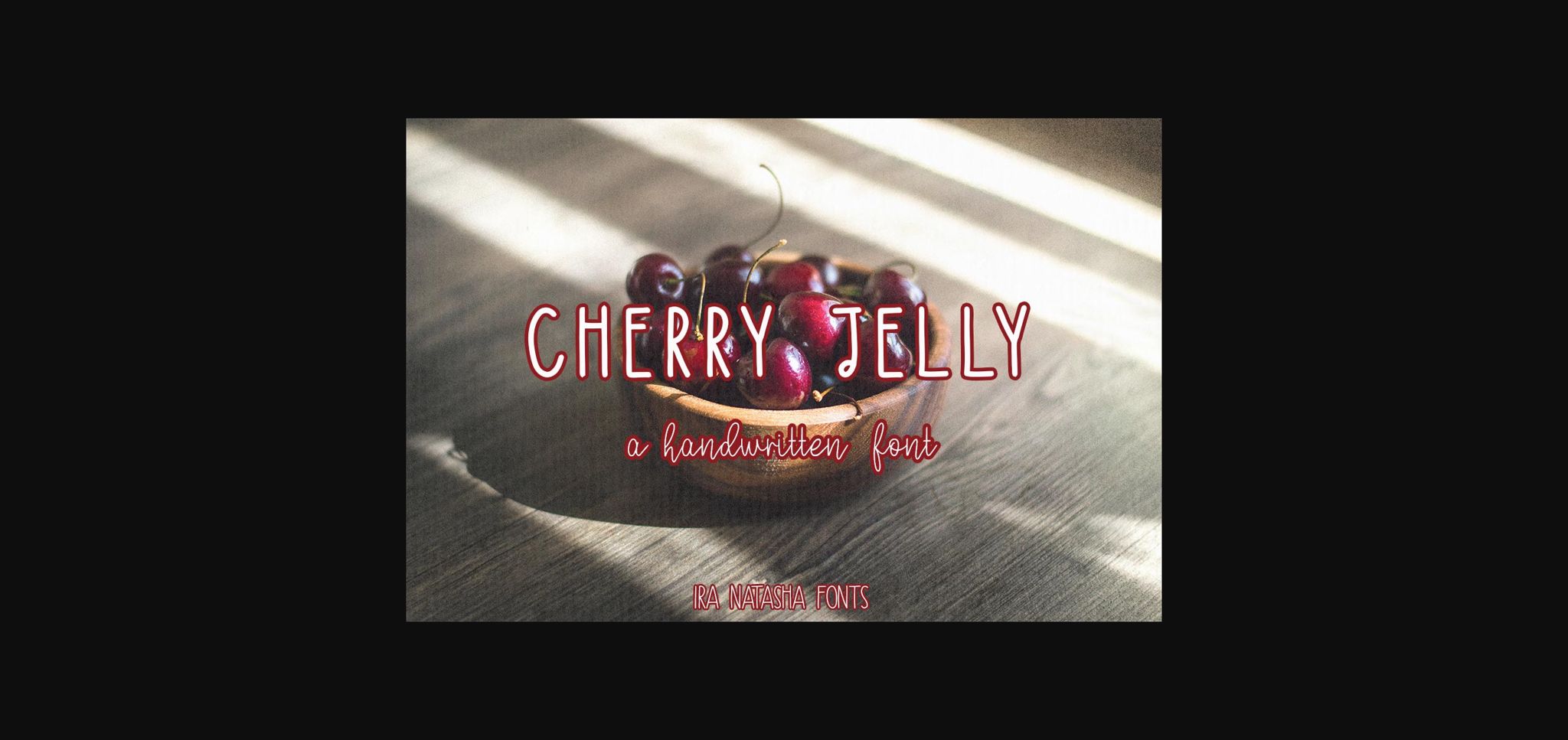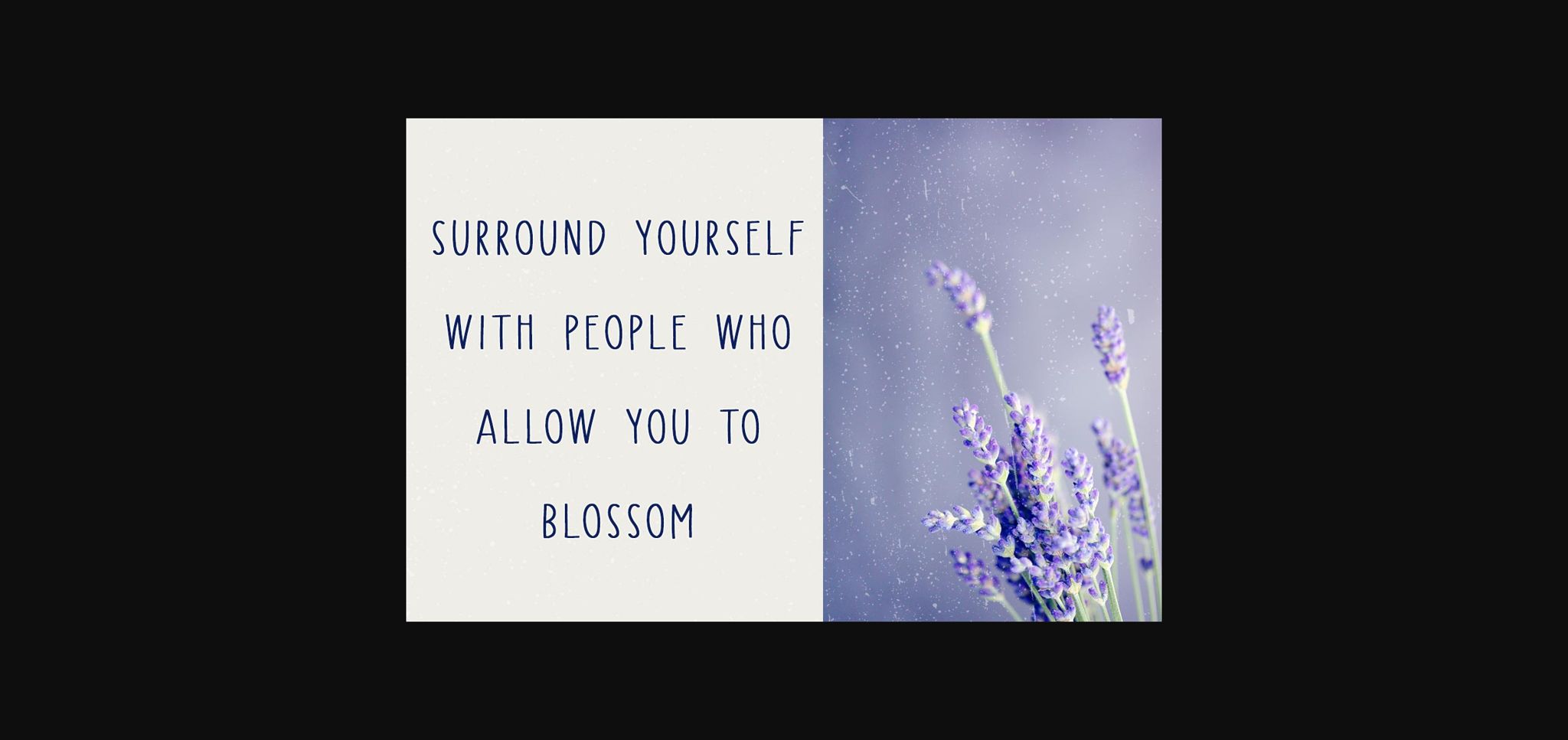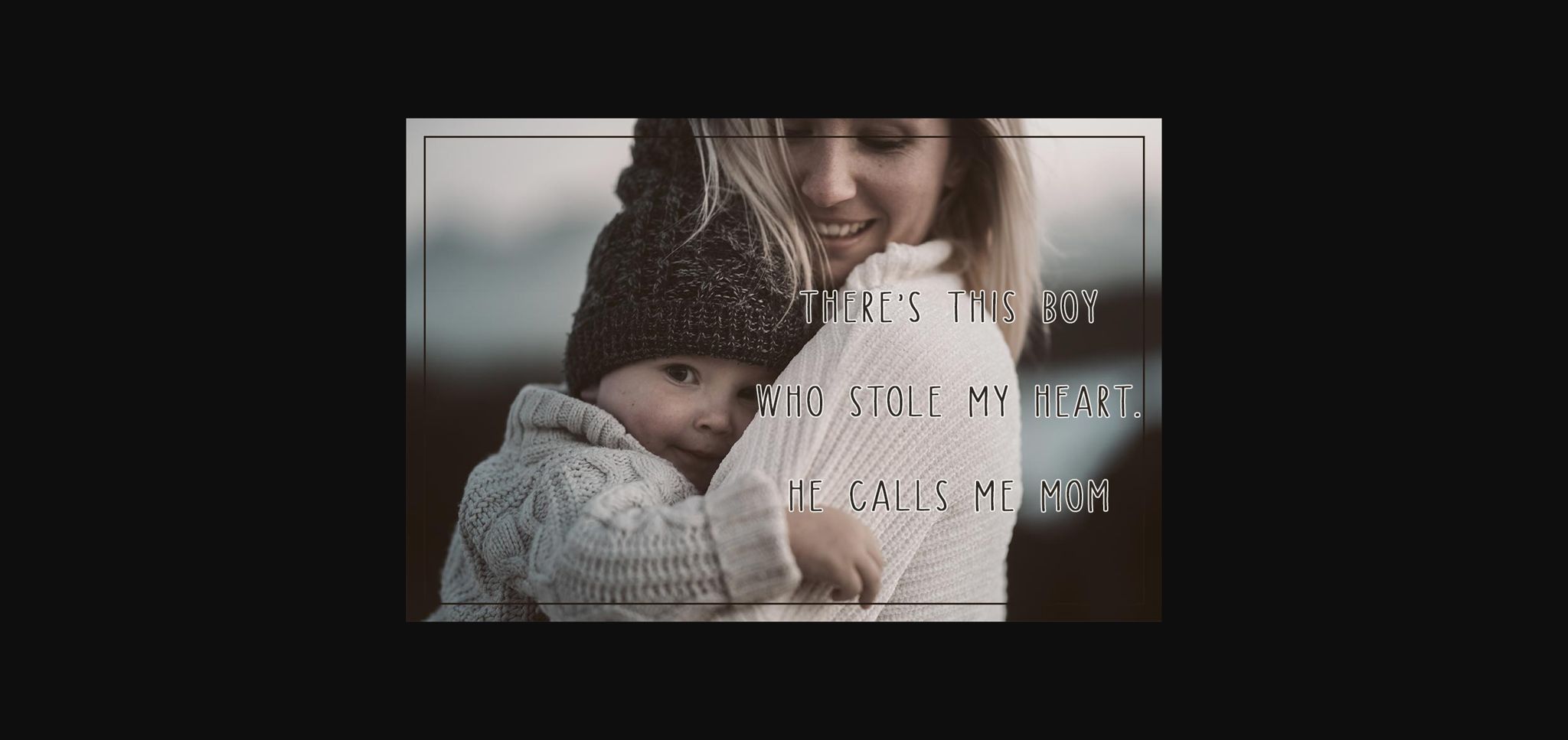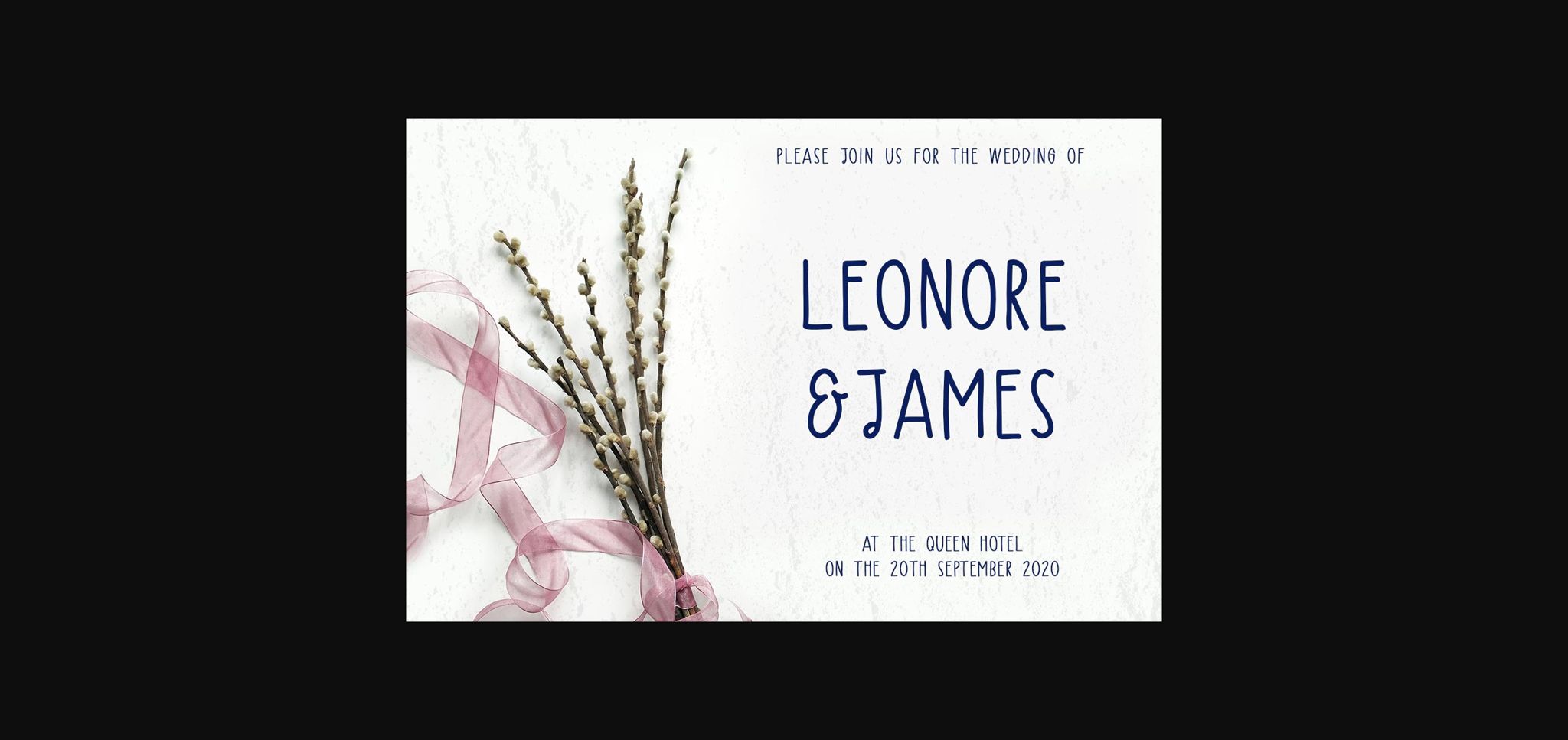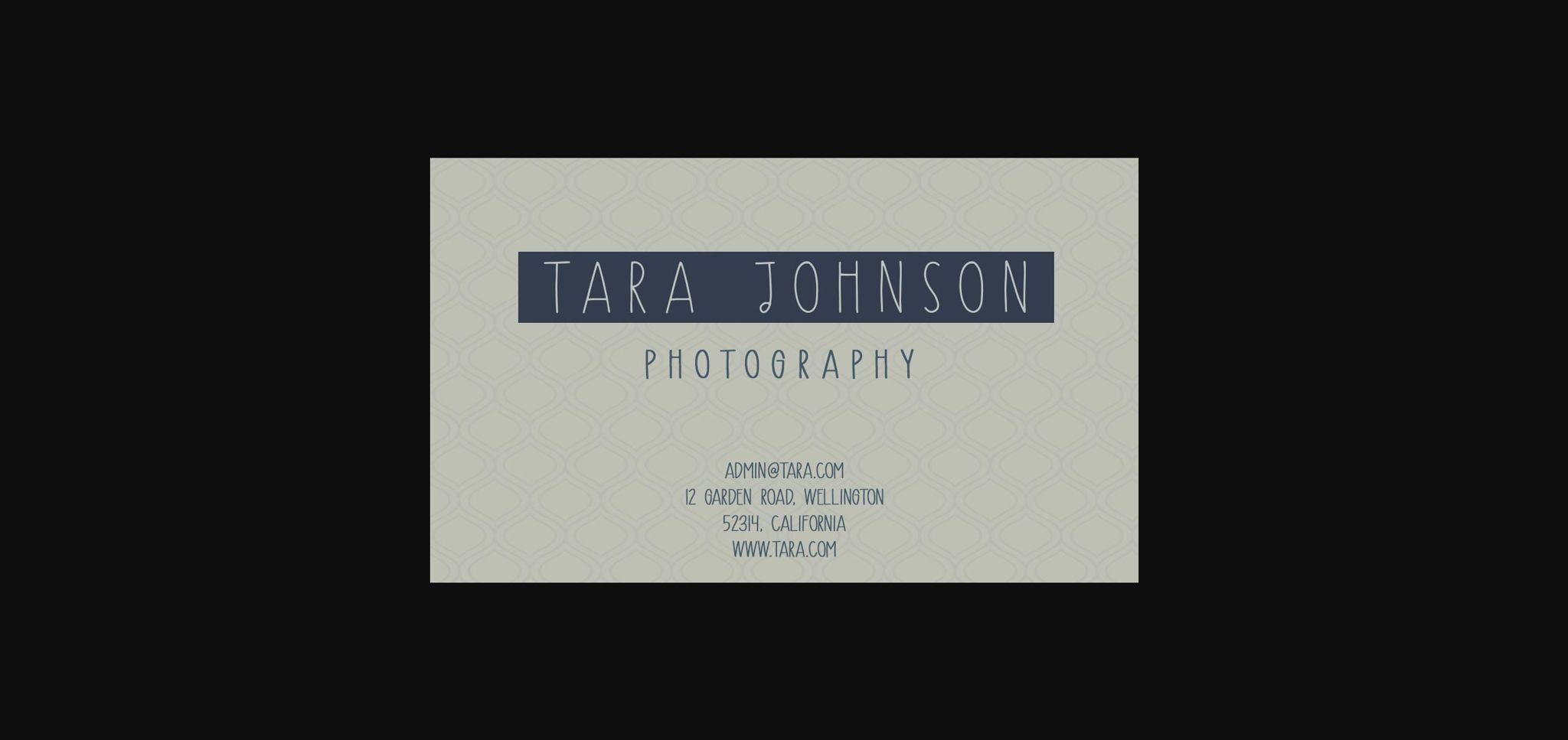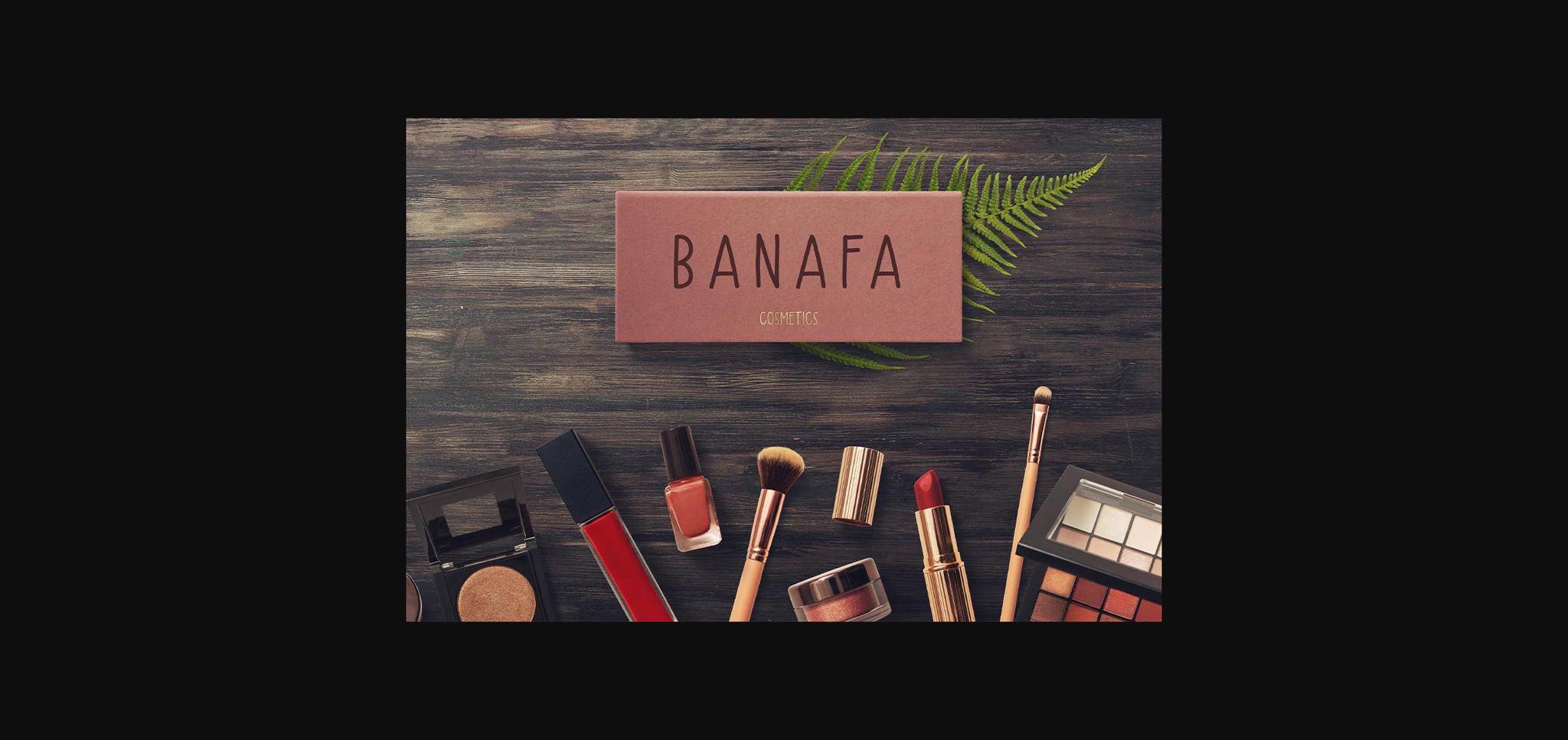
Cherry Jelly Font
About Cherry Jelly Font
Cherry Jelly is a fun and cute sans serif font. This font will be perfect for many different projects, such as, quotes, logo, blog header, poster, branding, fashion, apparel, letter, invitation, stationery, and more.